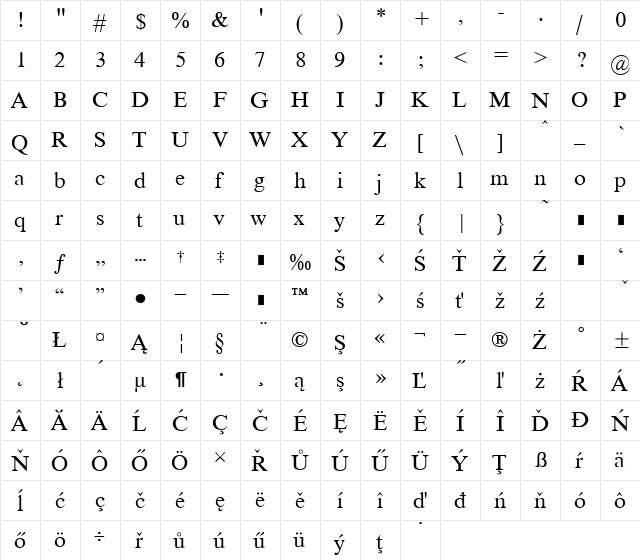
TmsEe Regular Font Preview
TmsEe Regular
TmsEe Regular Font Details
Design Context for TmsEe Typeface
TmsEe takes a measured approach to typography — its balanced proportions and neutral character make it a reliable workhorse for both digital and print work.